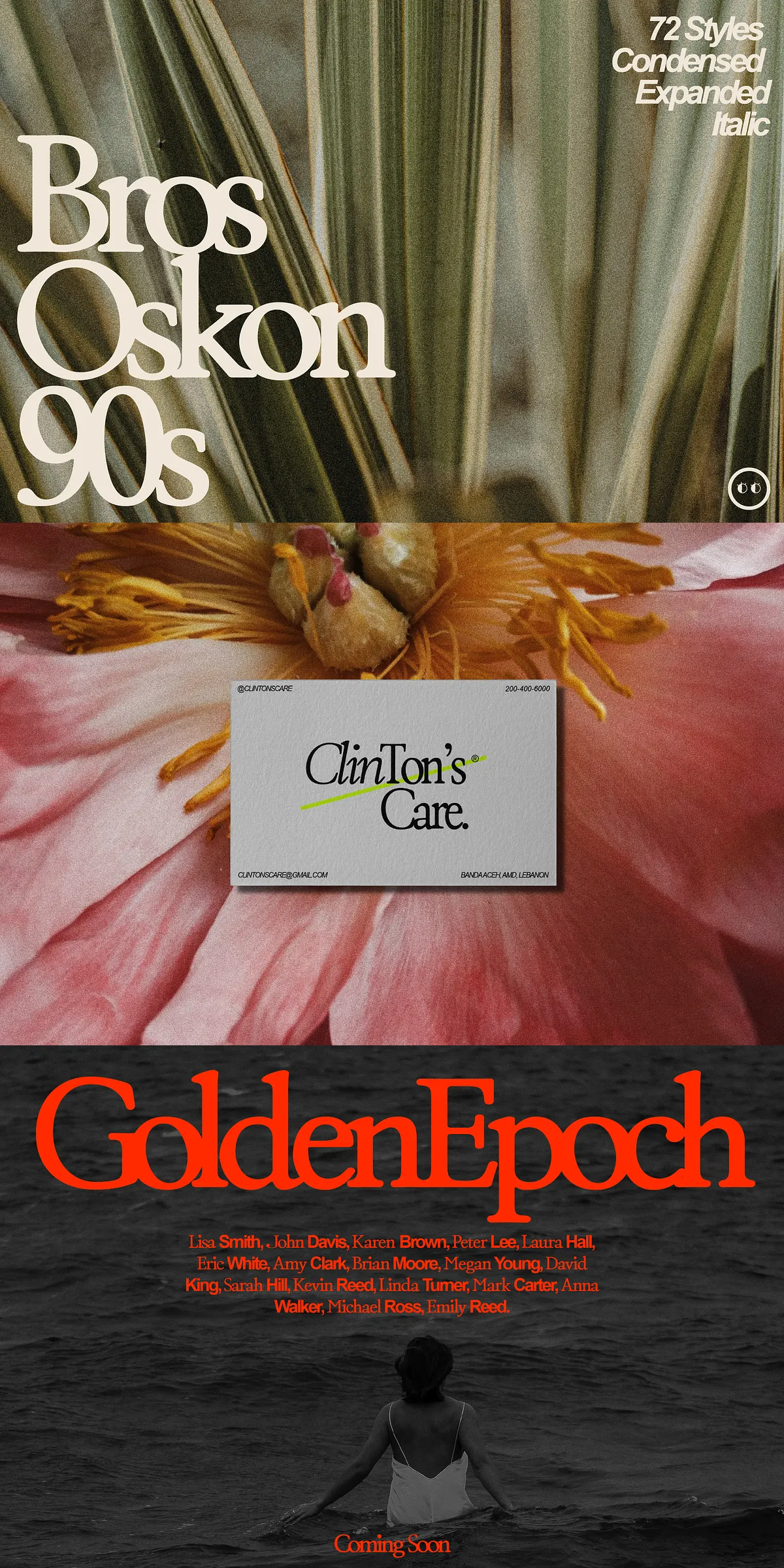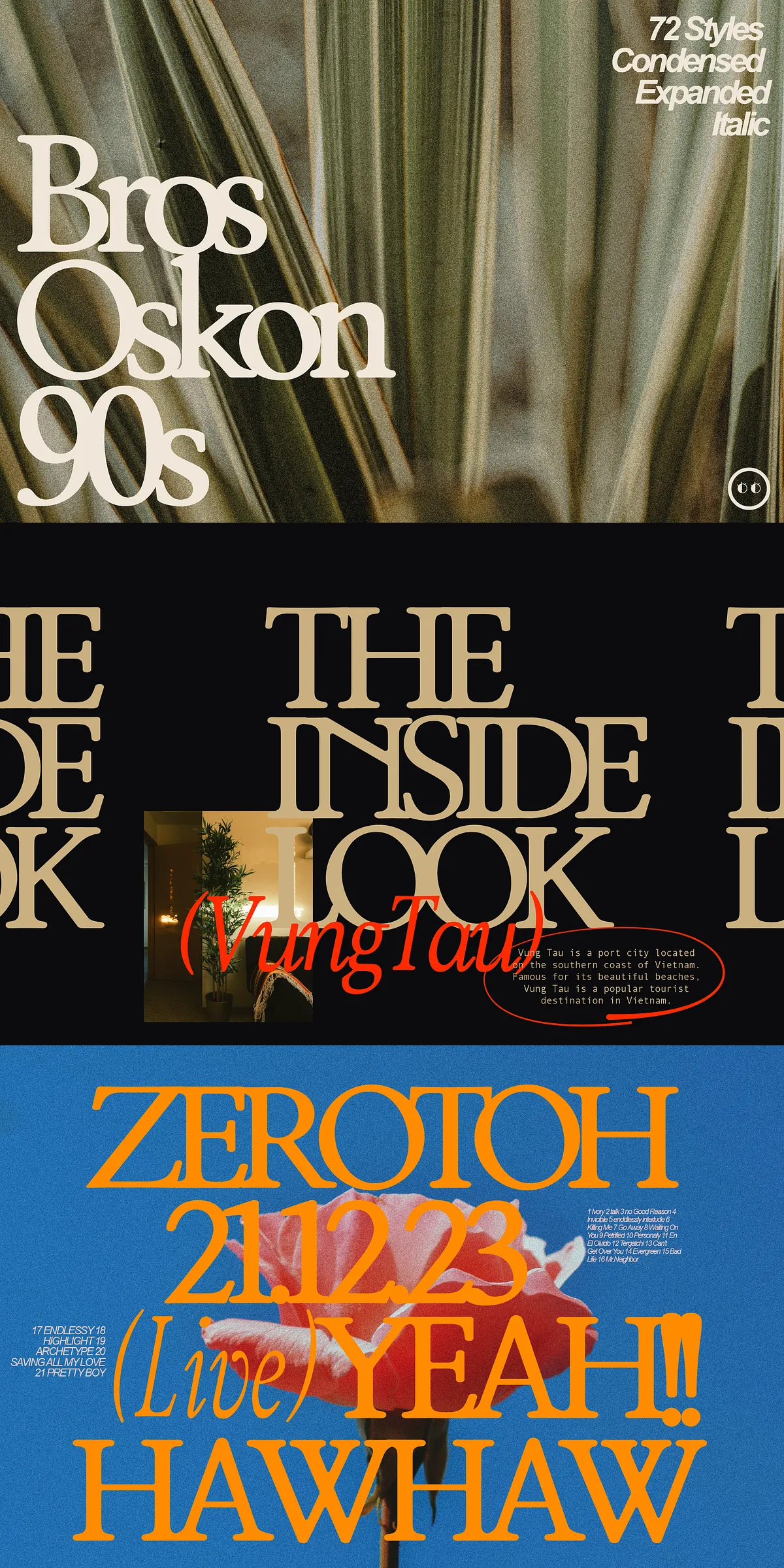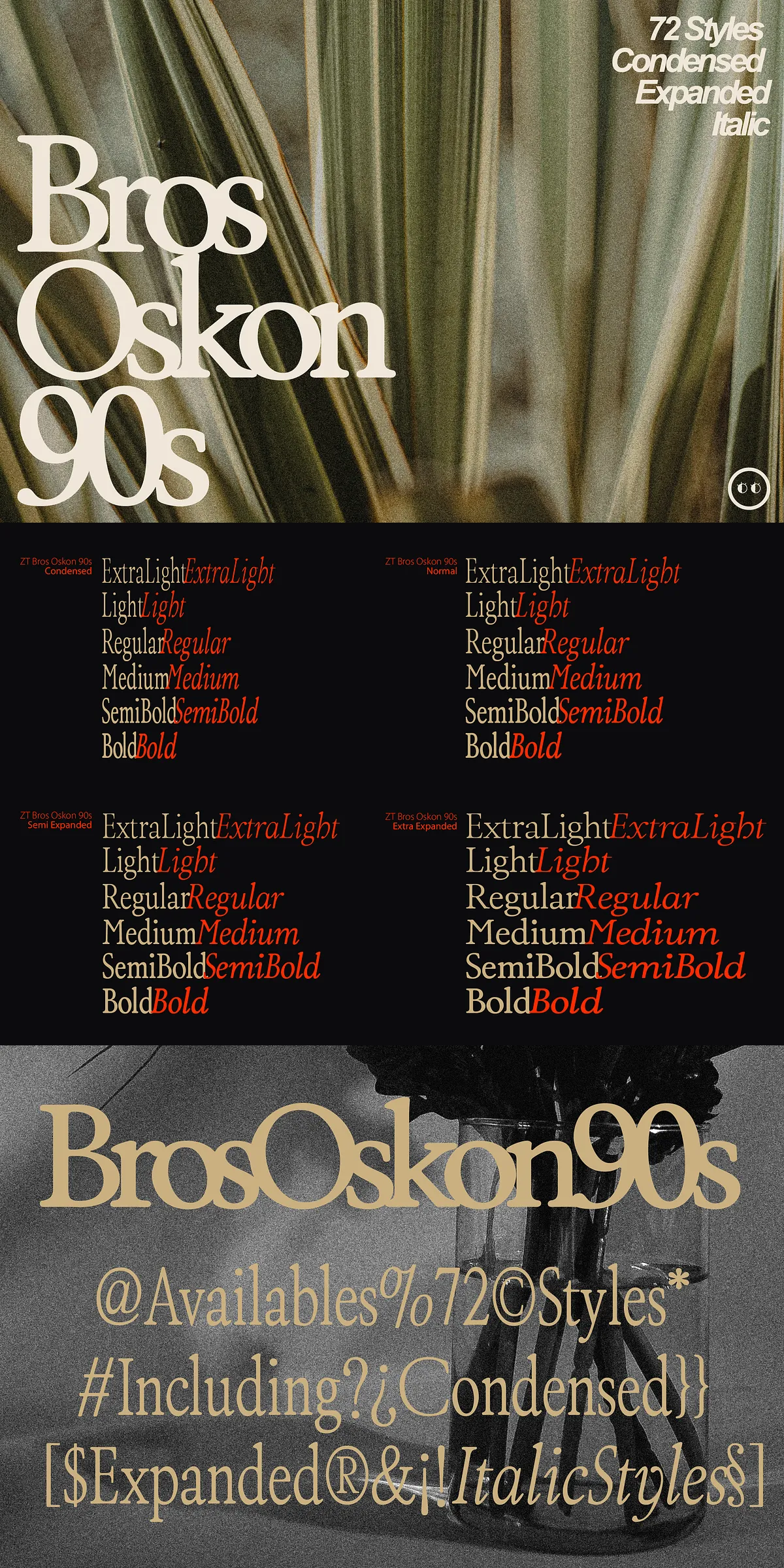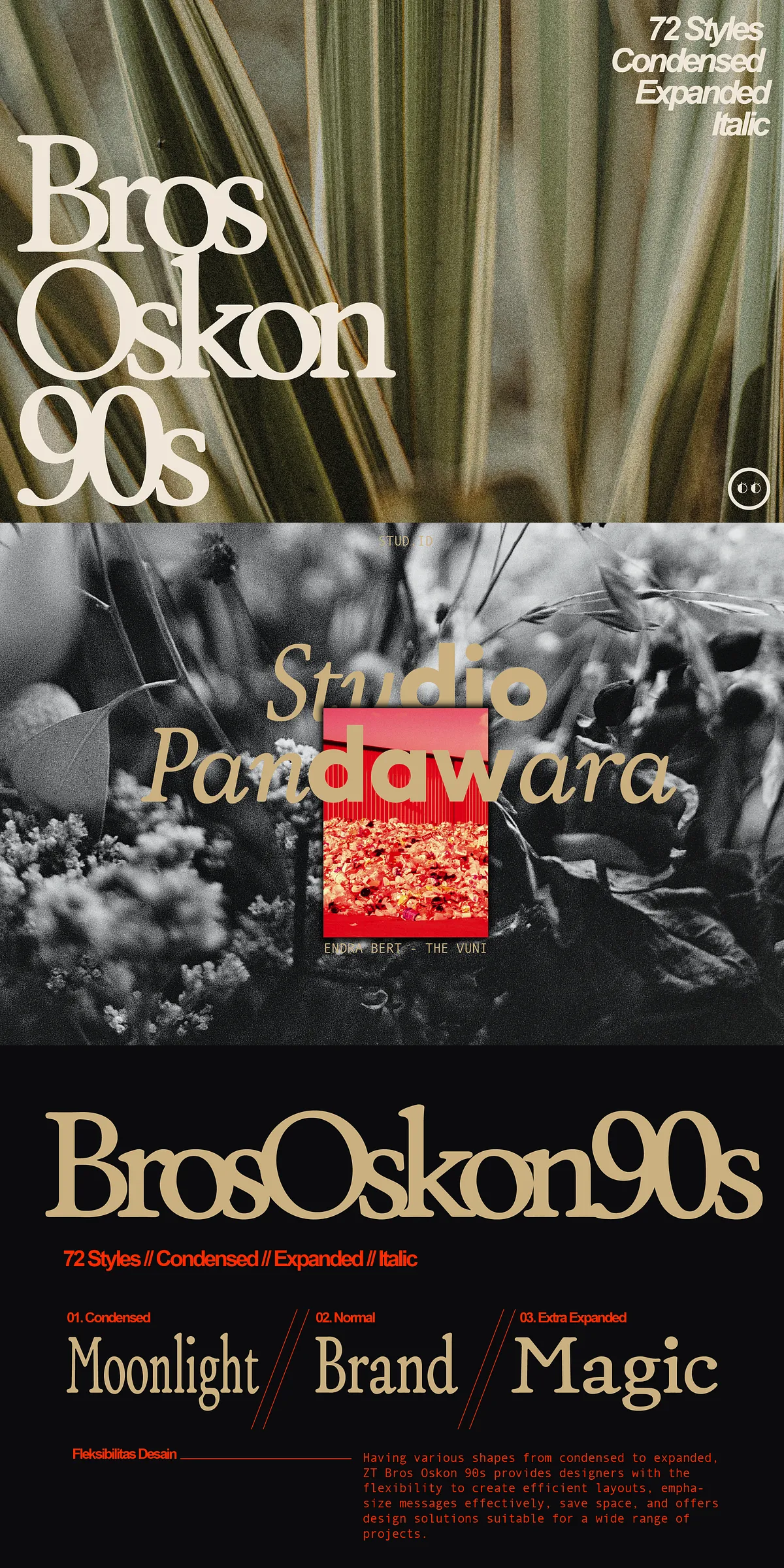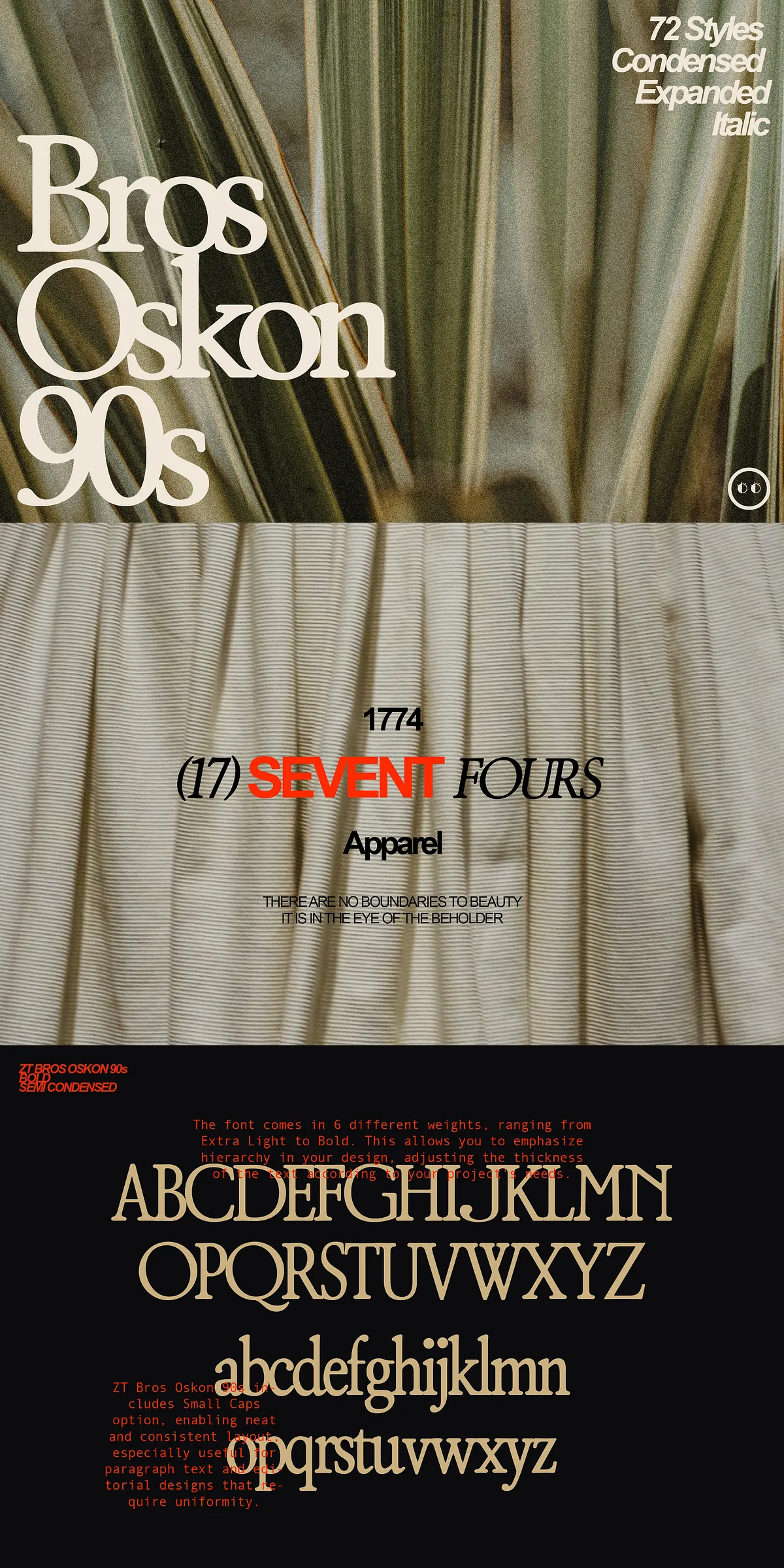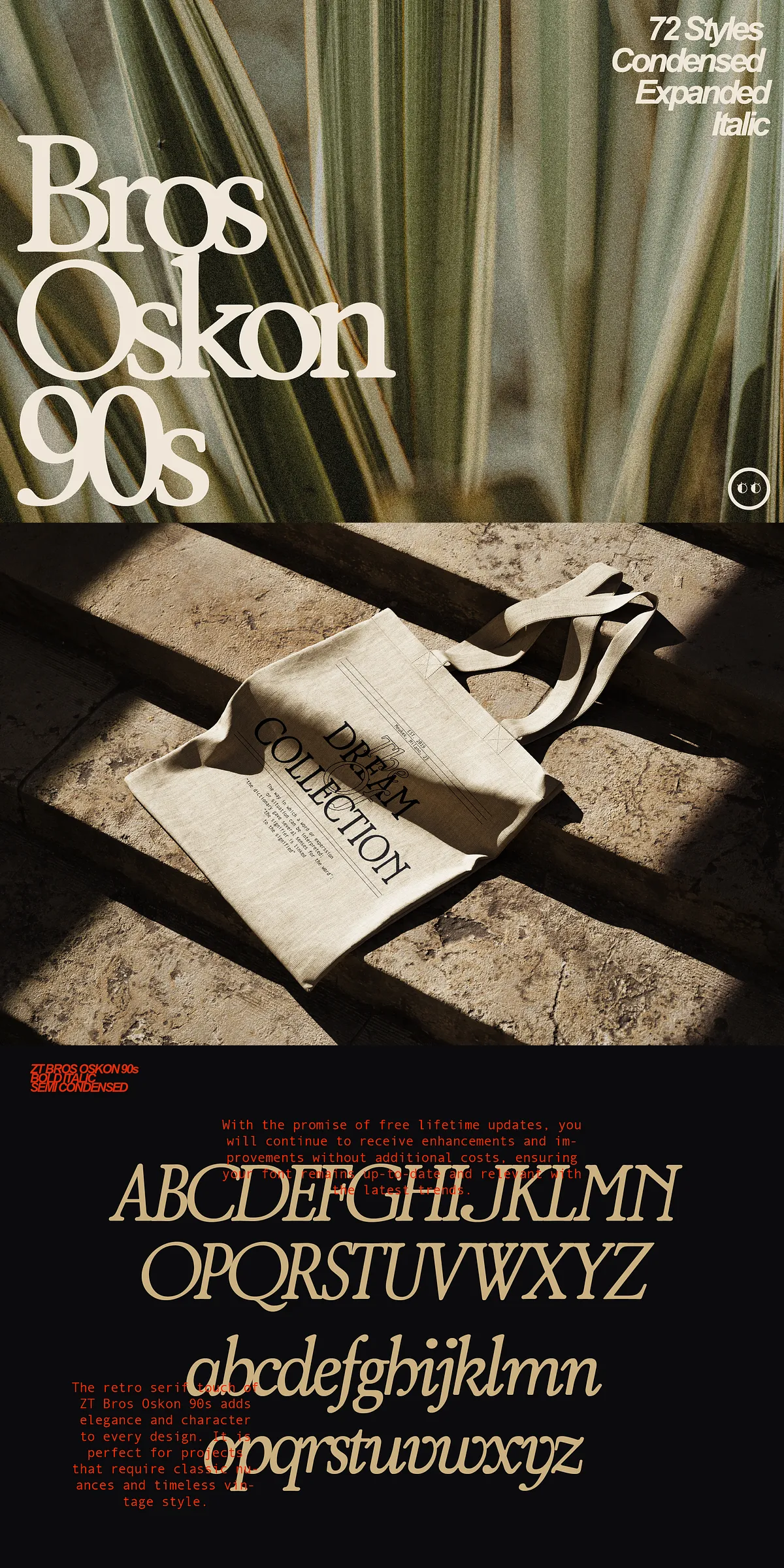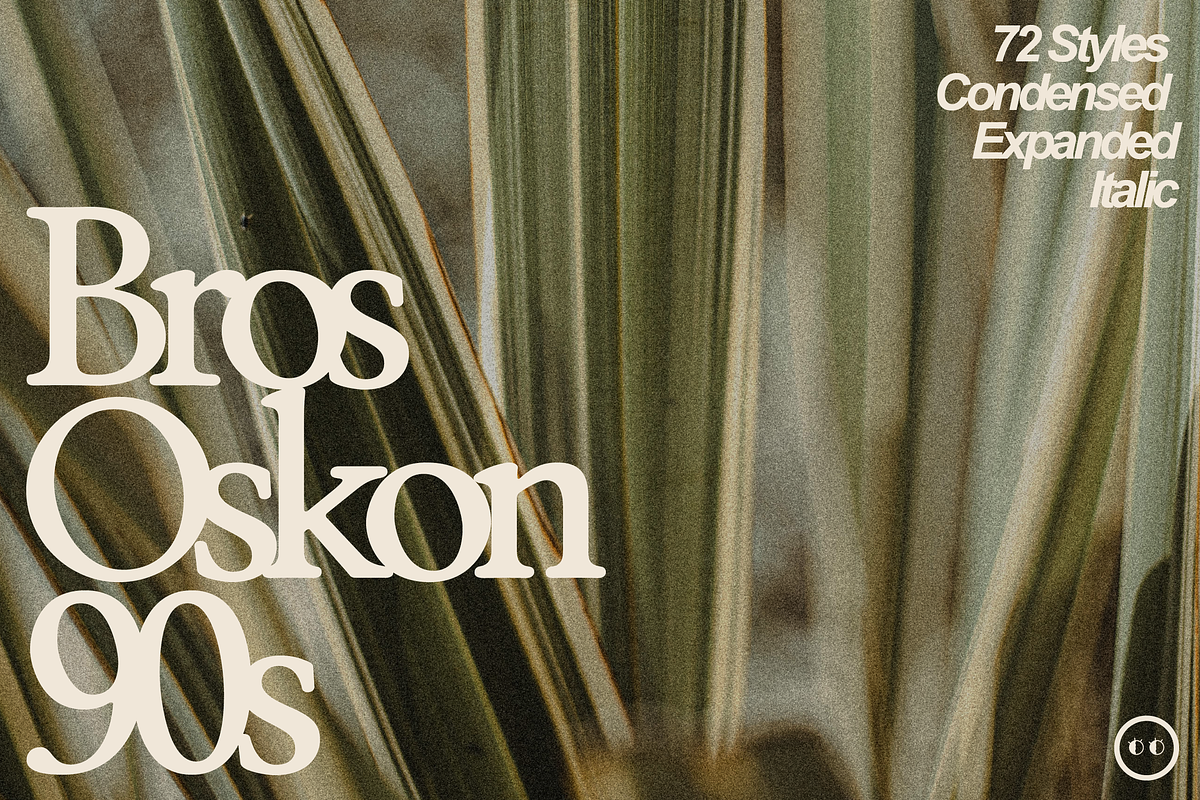
Step into the vibrant nostalgia of the 1990s with ZT Bros Oskon 90s — a bold, expressive, and deeply authentic typographic masterpiece designed to revive the iconic aesthetic of a decade defined by bold graphics, daring contrasts, and raw creative energy. This isn’t just a font — it’s a full creative toolkit for designers who want to dominate the visual landscape with a retro edge that still feels fresh and powerful today.
72 Unique Variations for Unmatched Creative Freedom
Every designer knows that the right typeface can make or break a project. ZT Bros Oskon 90s delivers 72 meticulously crafted variations, ensuring you’ll never run out of options to express your vision. Whether you’re crafting a high-impact poster, a retro-themed brand identity, or a digital campaign with vintage soul, this font family gives you unmatched flexibility.
- Condensed Forms — Ideal for tight layouts, bold headlines, and designs that need maximum visual impact with minimal space.
- Expanded Variants — Stretch your message across the canvas with flowing, spacious designs that command attention.
- Italic Styles — Add movement, elegance, and a sense of fluidity to quotes, logos, and editorial content.
- Sleek Ligatures and Stylistic Alternates — Enhance authenticity with handcrafted details that replicate the organic feel of 90s design.
6 Powerful Font Weights for Every Design Scenario
ZT Bros Oskon 90s is engineered for precision and performance across a range of design needs. With 6 distinct font weights, from the delicate Extra Light to the commanding Bold, you can fine-tune your message with emotional nuance and typographic authority:
- Extra Light — For minimalist headers, subtle branding, or elegant typographic contrast.
- Light — Perfect for clean, modern retro designs with a touch of vintage charm.
- Regular — The go-to weight for body text, clean logos, and balanced layouts.
- Medium — Add depth and presence to section titles and key messaging.
- Semi-Bold — Turn heads with slightly heavier emphasis — ideal for promotional materials.
- Bold — Command attention with maximum strength and retro intensity.
Where ZT Bros Oskon 90s Shines: Creative Applications
This typeface was built for real-world impact. Use it where style, personality, and nostalgia collide.
- Brand Identity & Logo Design — Create instantly recognizable logos that feel both classic and contemporary, perfect for lifestyle brands, music labels, and fashion boutiques.
- Poster & Print Design — Build bold, eye-catching posters for concerts, art exhibitions, or retro-themed events with a genuine 90s edge.
- Editorial & Magazine Layouts — Infuse articles, features, and pull quotes with authentic period flair while maintaining readability.
- Packaging & Product Design — Give products a retro-cool identity — ideal for limited editions, collectibles, and niche market goods.
Designed for Designers, Built for Impact
ZT Bros Oskon 90s is more than just a nostalgic trip — it’s a professionally engineered typeface with modern technical foundations. It includes:
Whether you’re a seasoned designer or a creative exploring the 90s aesthetic for the first time, ZT Bros Oskon 90s empowers you to create with boldness, clarity, and confidence.